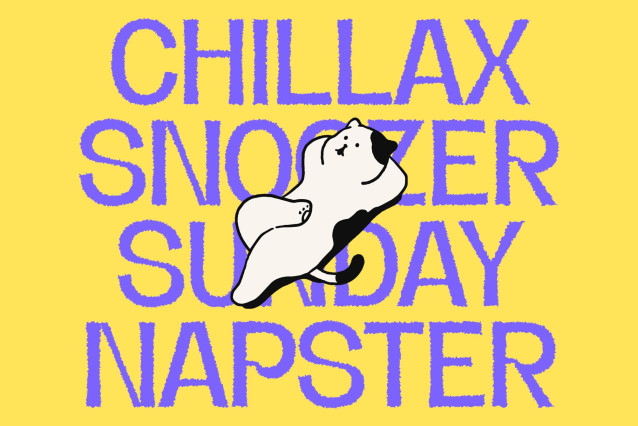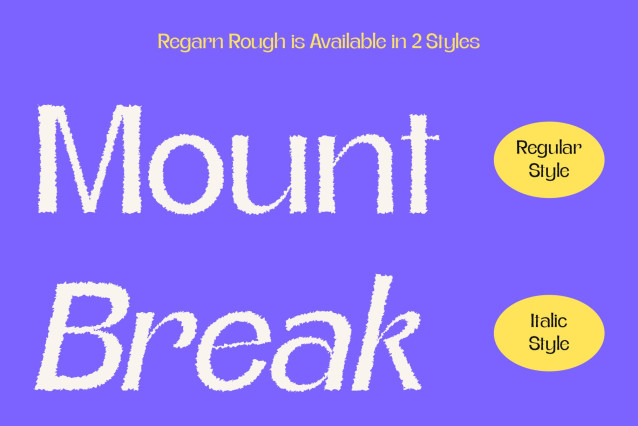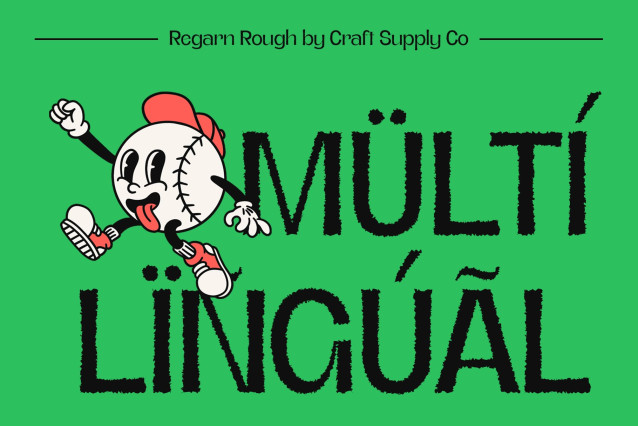
Regarn Rough Font
Regarn Rough Font – Bold Modernism with a Raw Edge
Modern Structure with Confident Impact
RegarnRough is a display sans serif font built for bold visual presence. Its clean, geometric letterforms offer clarity and precision, while the bold weight ensures maximum impact. Designed to communicate strength and professionalism, it’s ideal for headlines, titles, and any layout that needs to stand out.